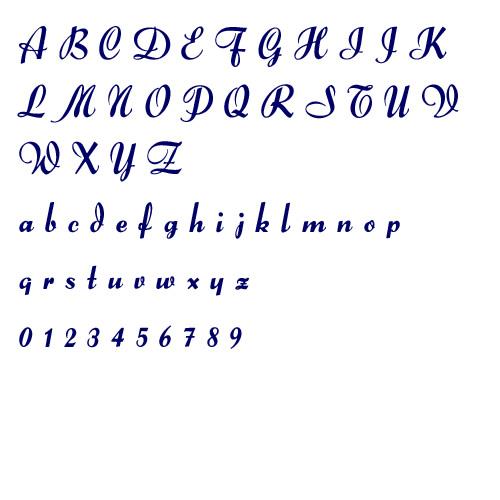
Fireside Threads is happy to present Forelle Embrilliance machine embroidery font which has This flowing script machine embroidery font adds charm to projects like cushion covers and kitchen linens. Offered in BX font and Embrilliance formats, it showcases soft purple curves, perfect for personal touches. included. If you would like to view more embroidery fonts and alphabets please search our embroidery fonts page.